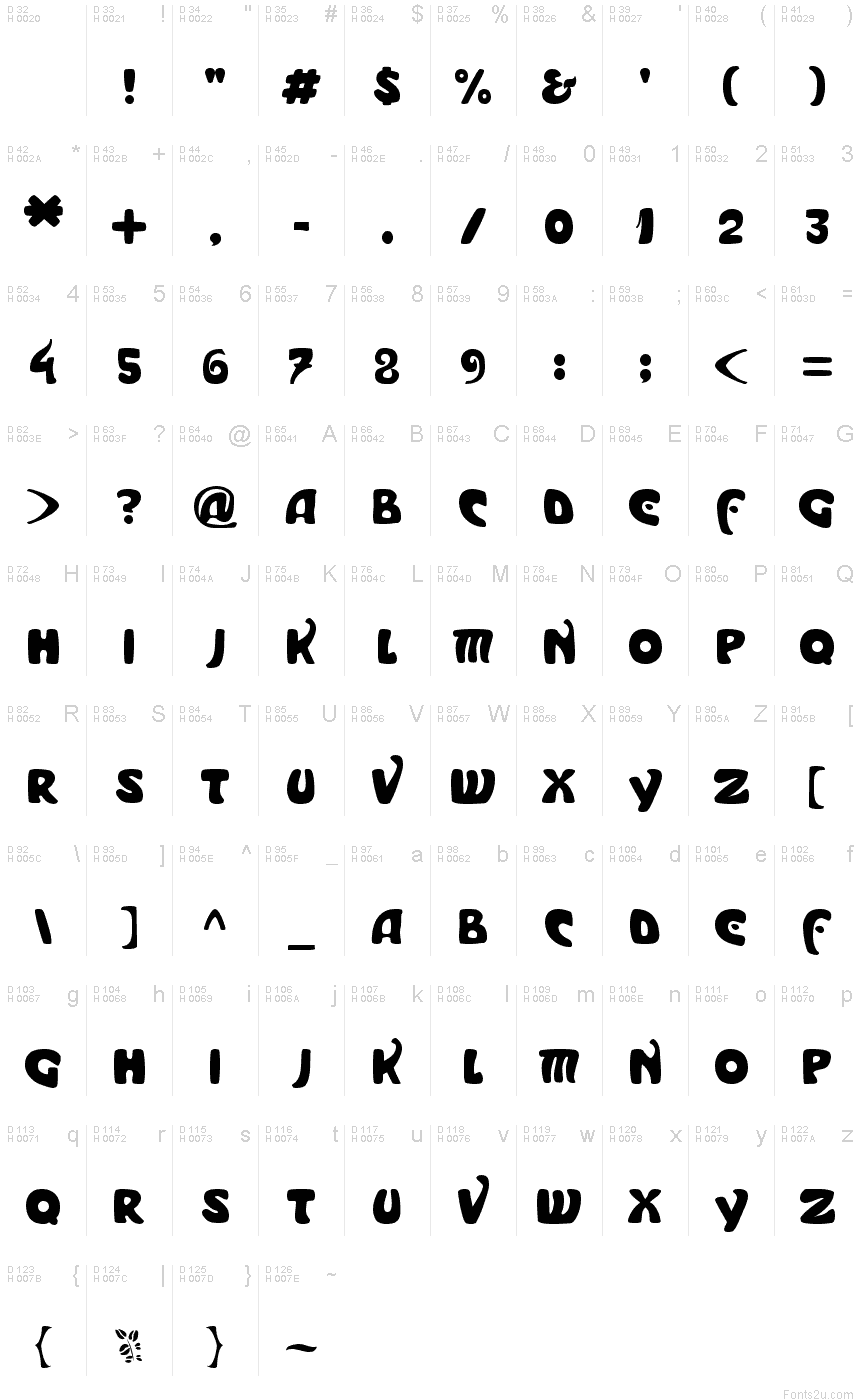
Moderno
Moderno font by Tomoyuki Watanabe is a free display font with rounded, swollen forms and a comic edge that gives the letters a soft, almost inflatable shape. The heavy curves and open inner spaces make the typeface feel more handmade than mechanical, with each word carrying the same rounded rhythm.
Moderno works well for posters, children’s branding, album covers, logo marks, and party invitations where a chunky display face needs to read with character. This free font suits short headlines and packaging labels because its wide, relaxed shapes stay playful without becoming messy, especially in larger sizes.